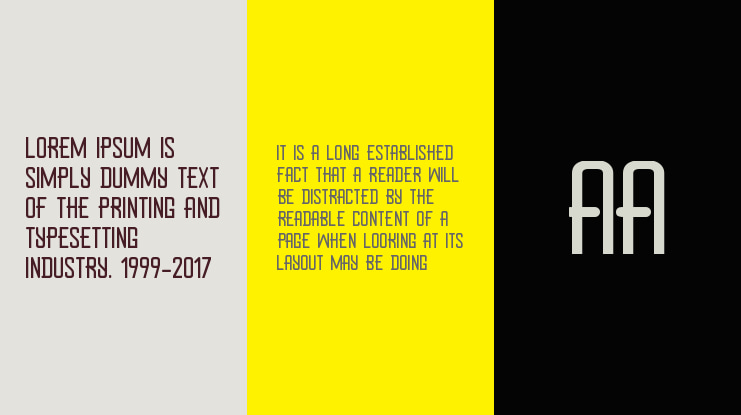
Greisy Font
[ Consistype ] Fachrul Muhamad Ariestyan
The new font from Consistype in 2020 is the Greisy font with sans serif / display styles.
Greisy Features: - Uppercase - symbol - number - Regular / italic / outline / outline-italic - Light  - Regular - Medium - Bold